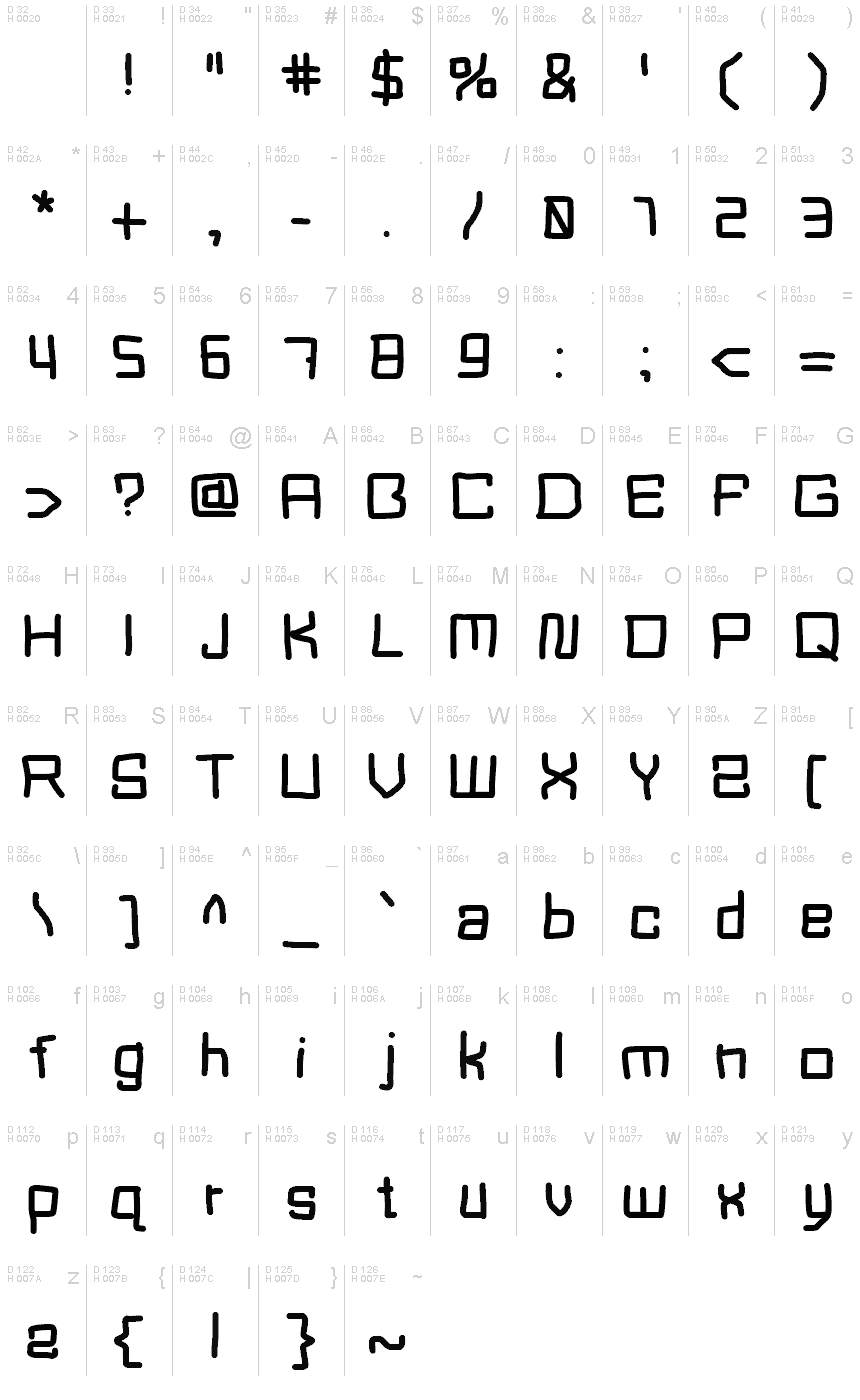
MBBlockType
The captivating Block Type font, crafted by the talented Marcus Burnette, exudes a playful, comic-inspired essence. Its bold, angular strokes and distinctive block-like structure create a visually striking and memorable aesthetic. This display font effortlessly blends contemporary and retro influences, capturing the attention of designers seeking a unique typographic statement.
Versatile in its applications, Block Type lends itself seamlessly to a range of design projects, from eye-catching headings and titles to impactful branding and packaging. Its robust and confident character makes it an excellent choice for energetic, attention-grabbing designs, whether in the realm of advertising, editorial, or digital interfaces.